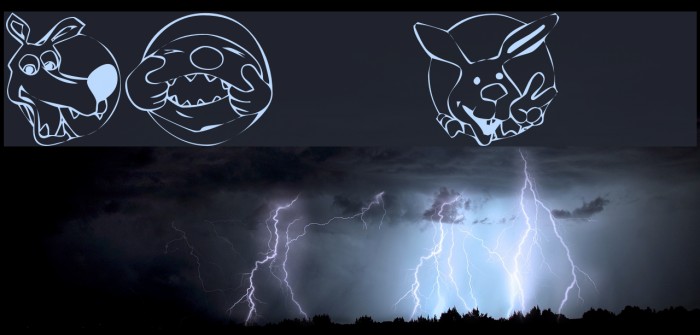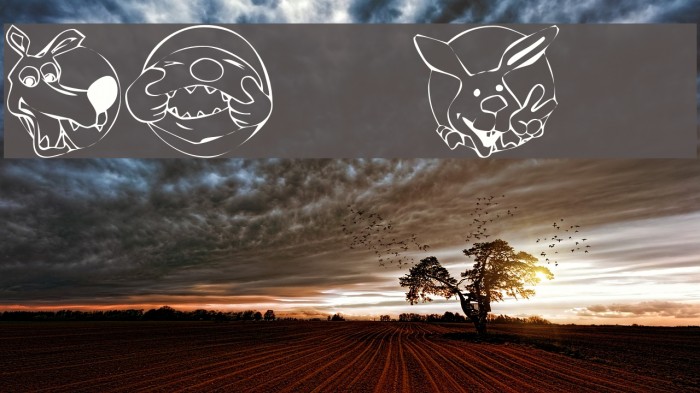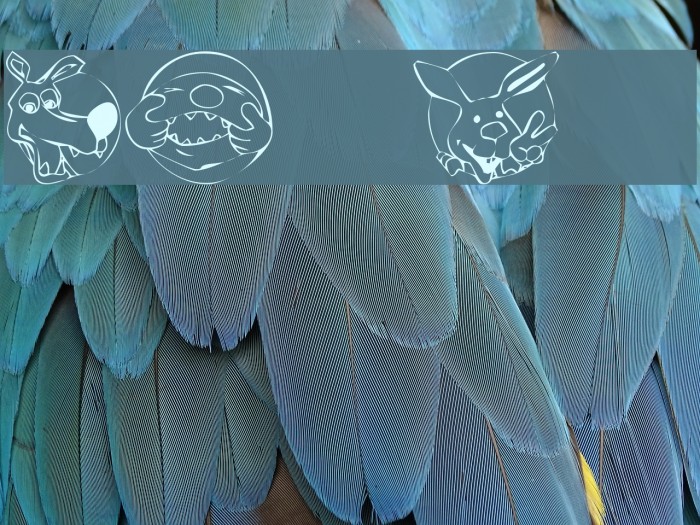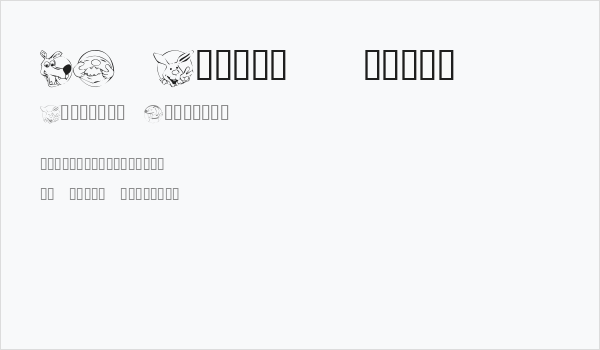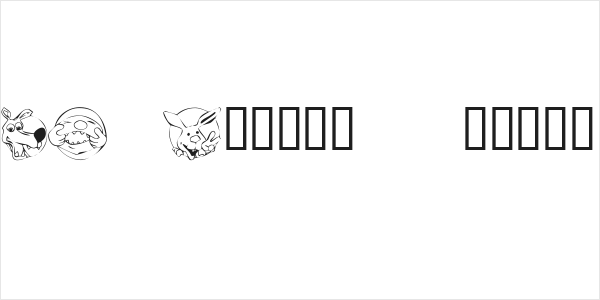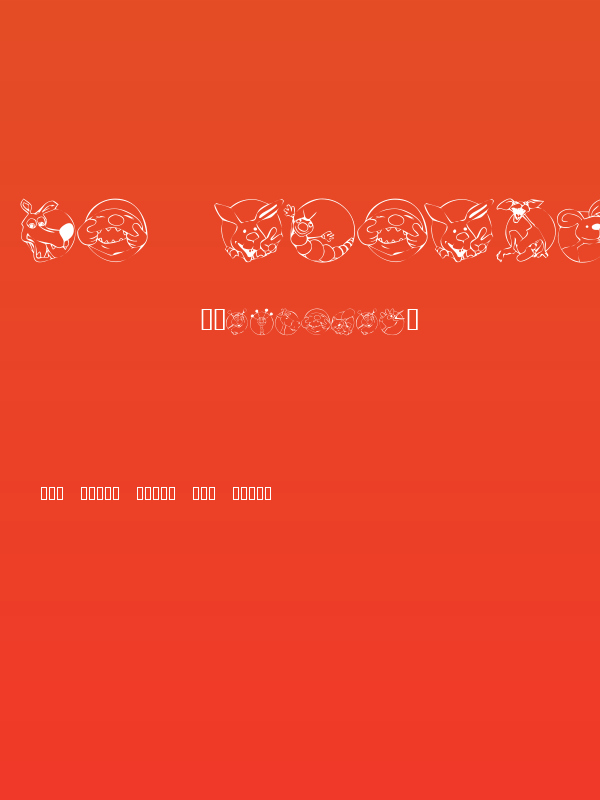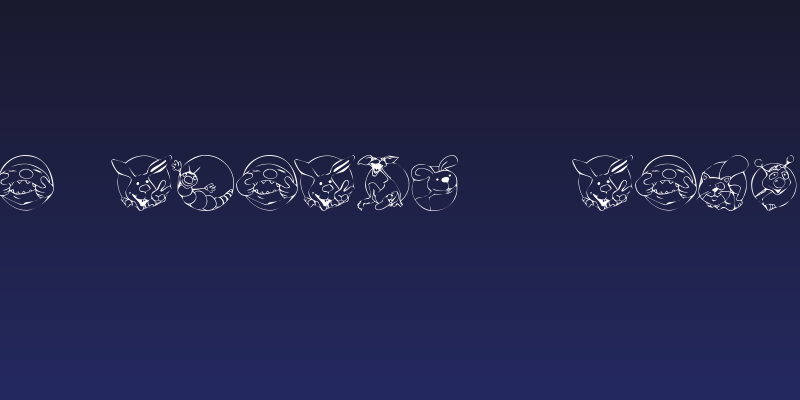
KR Circle Scraps Font
KR Circle Scraps Description
This is not a traditional font but rather a collection of whimsical, circular illustrations featuring various cartoon characters. Each character is enclosed within a circle, showcasing playful and imaginative designs. The characters exhibit a range of expressions and styles, from quirky and humorous to cute and endearing. The overall aesthetic is light-hearted and fun, making it suitable for creative and informal projects. The illustrations are detailed, with each character having distinct features that add to their charm. This collection is more of a decorative element rather than a functional typeface.
| Use Case | Decorative elements, illustrations. |
| Proposed Projects | Ideal for children's books, playful branding, greeting cards, or any project needing a whimsical touch. |